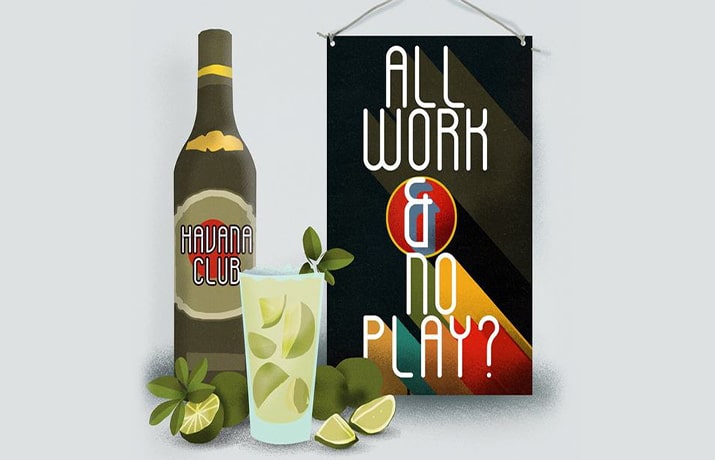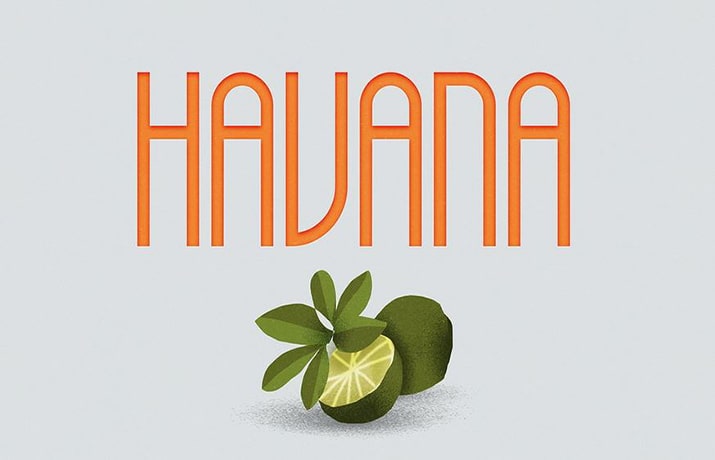
Havana Font is a modern sans serif typeface that has an impressive display look with preset kerning — a really nice feature. It is best at display sizes but works at smaller sizes, too.
This typeface features stunning ligatures and warm numerals as well as a unique design combined with a contemporary and luxurious look and feel.
Each style in letterform has an unmistakable clarity. From upper case to lower case or in numbers design it achieves extraordinary visibility power.
And the best thing is that the designer has put a special curve in each alphabet as you can see in the pictures. All aspects of this TrueType font family have the same basic principles, including type design.
Havana Font Family has come with four unique styles including Regular, Shadow, Italic, and Rounded. Thus, it can fulfill a broad design approach.